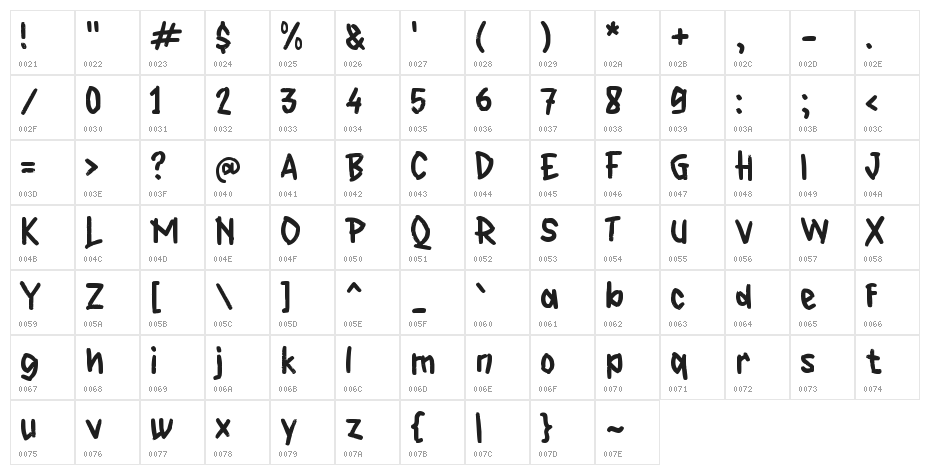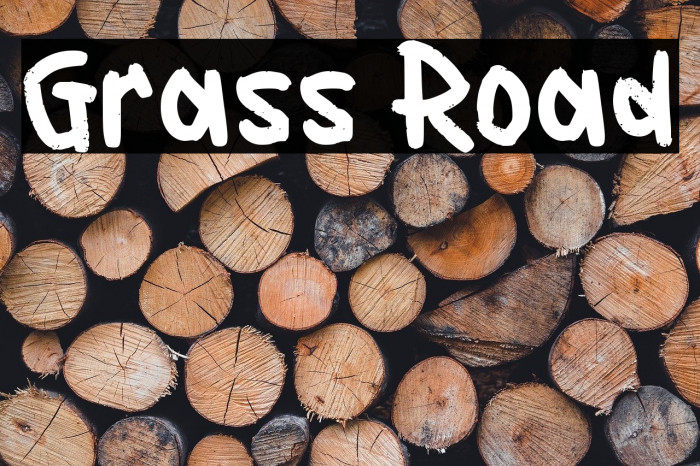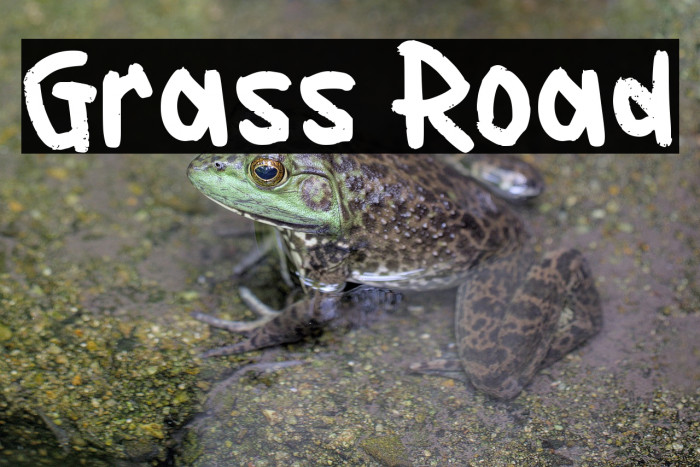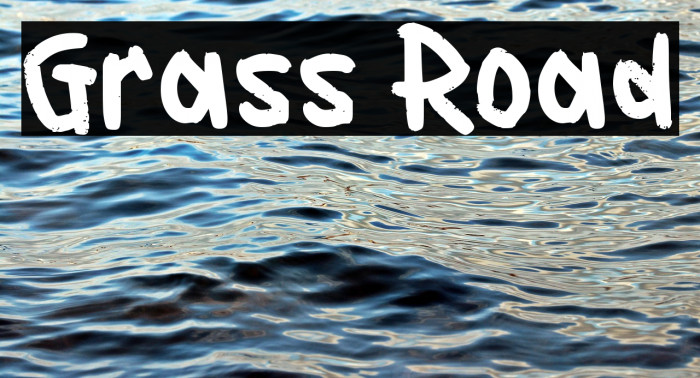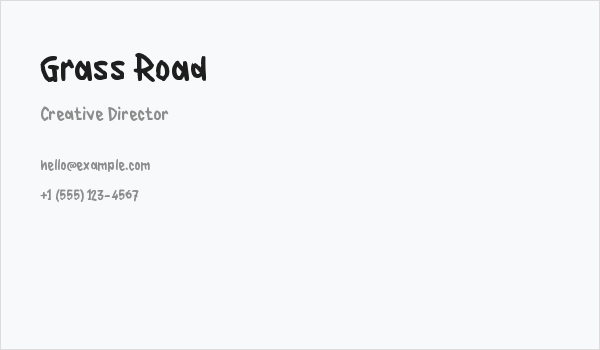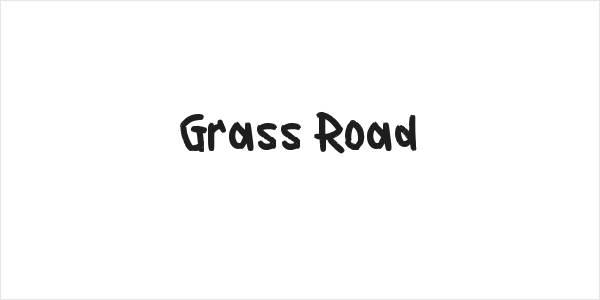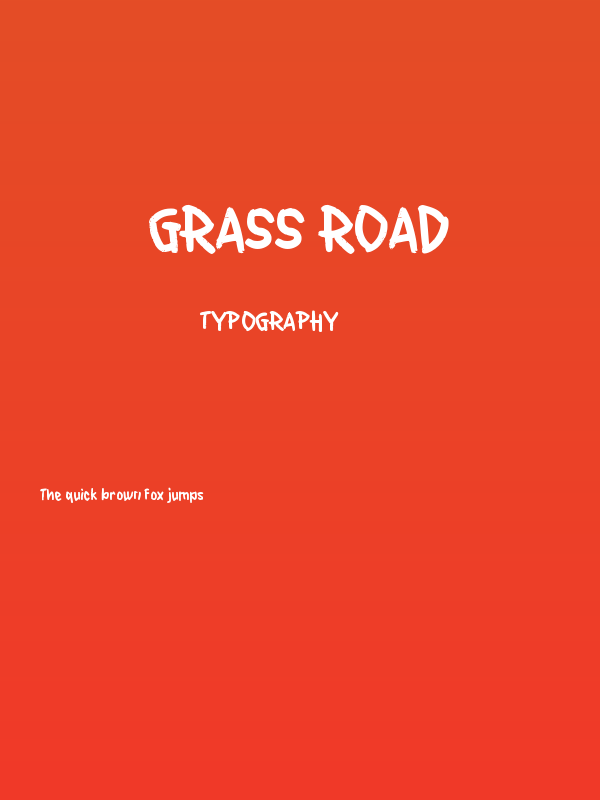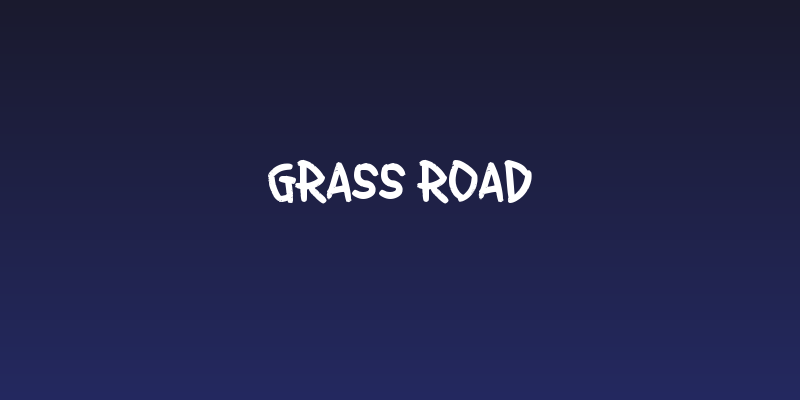
Grass Road Font
Grass Road Description
This font features a bold, hand-drawn style with a playful and energetic appearance. The letters are slightly irregular, giving it a casual and informal feel. The strokes are thick and textured, resembling brush strokes, which adds a dynamic and artistic touch. The uppercase and lowercase letters are well-balanced, maintaining a consistent flow throughout the alphabet. Numbers and special characters follow the same design, ensuring a cohesive look. This font is ideal for projects that require a personal and creative touch, such as posters, invitations, and branding materials.
| Proposed Projects | Ideal for posters, invitations, branding materials, and creative projects. |